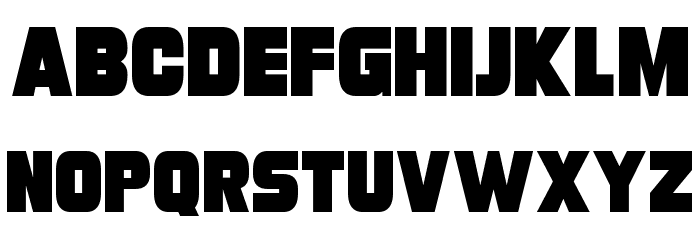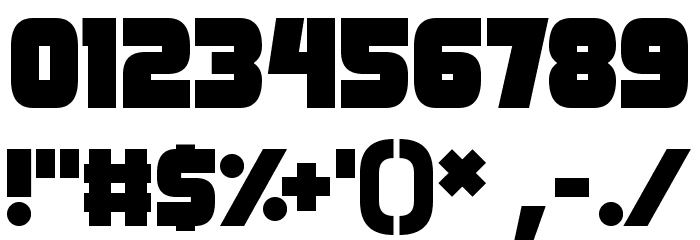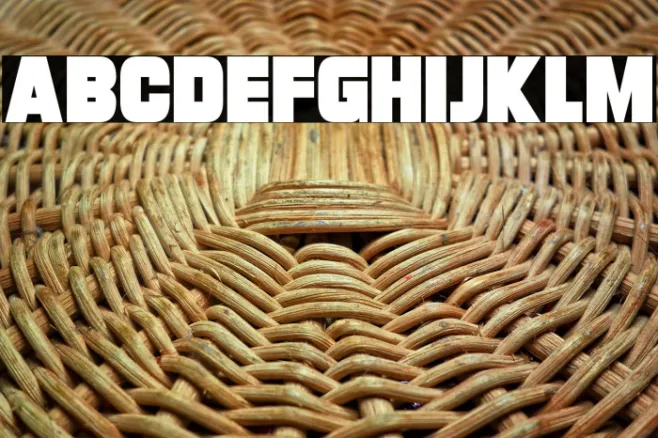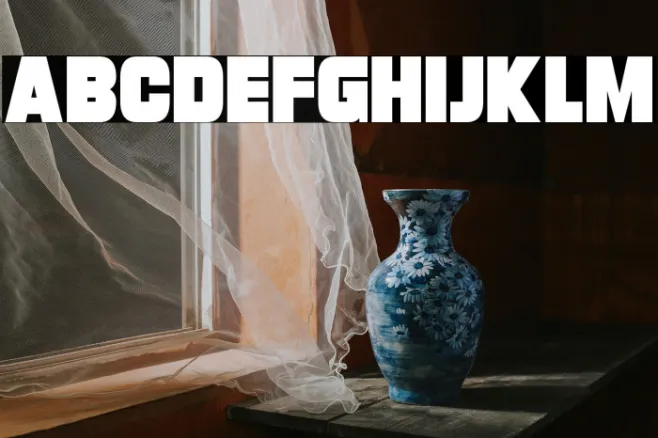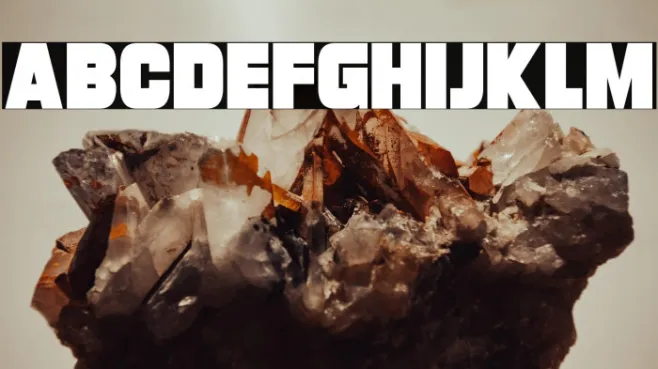
Turnaround Font
This font features a bold, impactful design with strong geometric shapes and a modern aesthetic. The characters are uniformly thick, creating a powerful visual presence. The uppercase letters are particularly striking, with a blocky and robust appearance that commands attention. The numerals and special characters maintain this bold style, ensuring consistency across all elements. The font's design is clean and straightforward, making it suitable for projects that require a strong, assertive typeface.
A bold, geometric font with a modern and impactful style.
- Font: Turnaround
- Proposed Projects: Ideal for branding, posters, headlines, and any design requiring a strong visual impact.